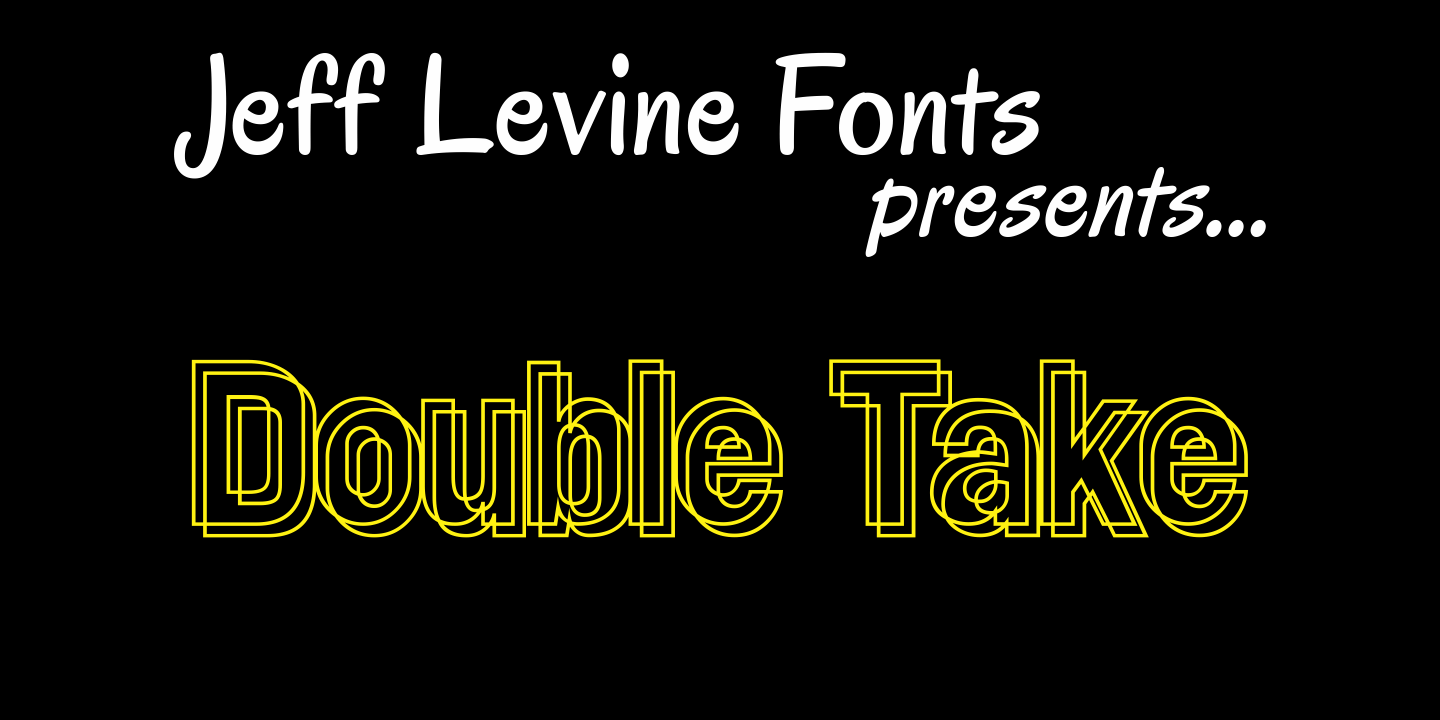
Double Take
Hey, what the hey! You'll have to look twice at this unusual typeface from Jeff Levine. Utilizing the sans serif lettering found in Trade Printer JNL, this novelty font combines two staggered outline versions that are blended together to give a double-image effect.
This works best at large point sizes and with minimum word count. Use it for attention-getting phrases such as "You'll See Double" or "You Won't Believe Your Eyes" (or similar ad copy).
Double Take JNL Regular by Jeff Levine Fonts